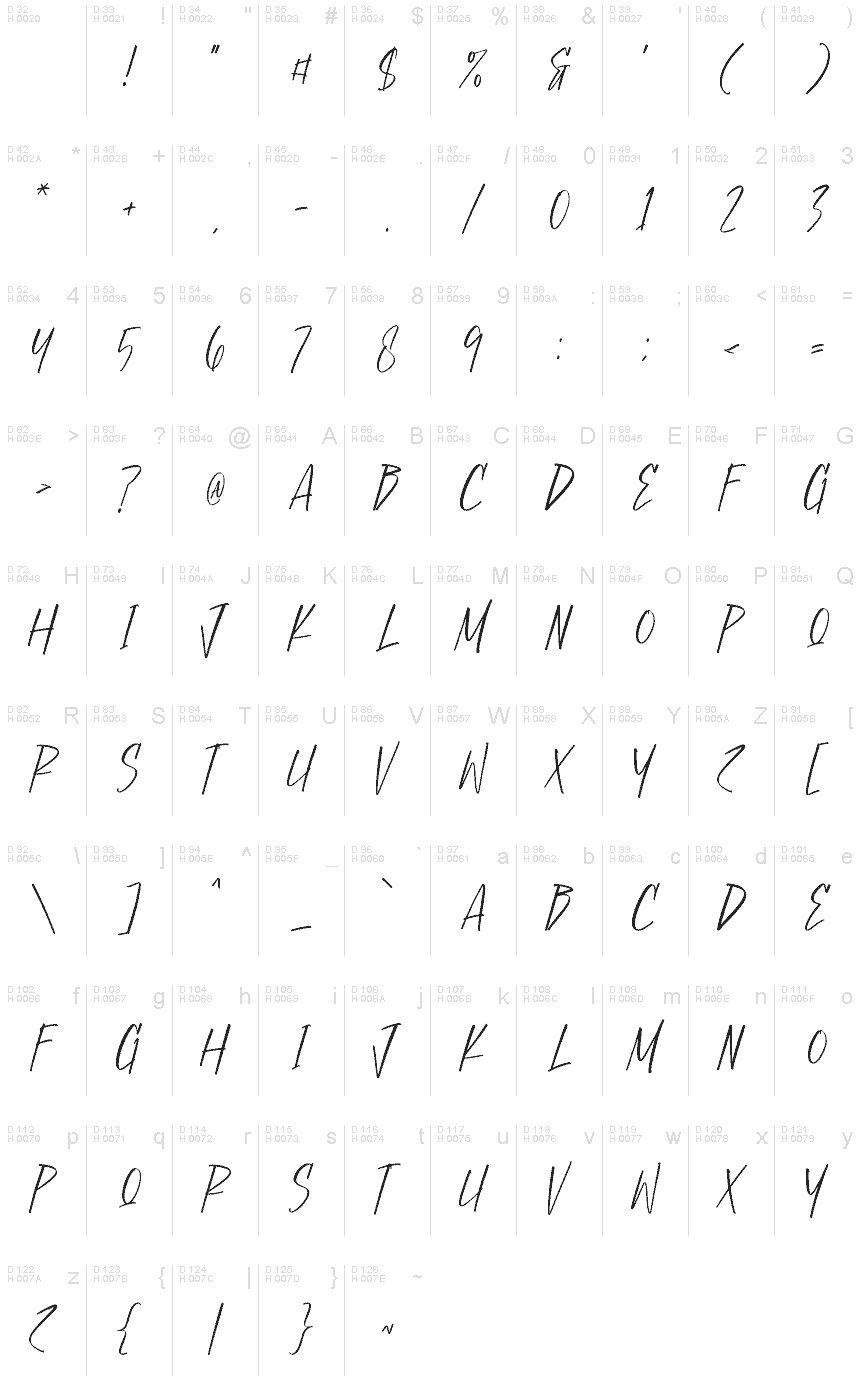
Justice Hunter
Justice Hunter is a free handwritten font available in OpenType format, it is designed with the casual style of real pen ink strokes created from the letterena.com’s perspective and offers different styles for different letters. The set includes uppercase and lowercase letters and numbers as well as punctuations.
This is a perfect font for projects that demand to carry a warm and natural effect like posters, stationery, branding, social media templates, etc.